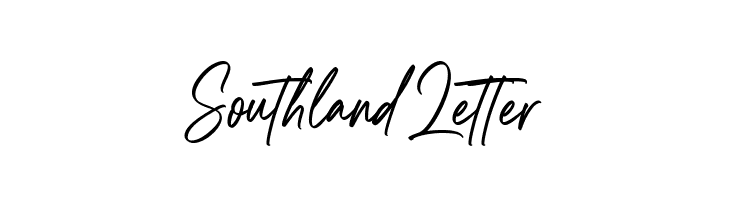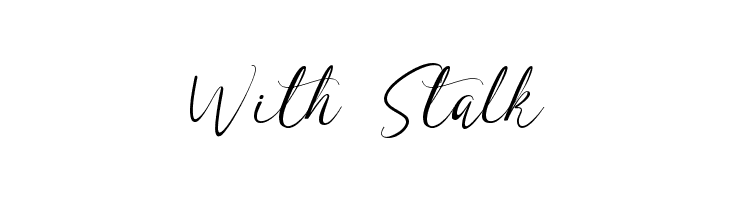
A decorative script font with floral embellishments and elegant, flowing letterforms.
A bold, angular font with a dynamic and energetic slant.
A bold, hand-drawn font with an expressive and playful style.
A fluid, cursive font with a natural handwritten style and medium contrast.
A futuristic, angular font with a dynamic slant and geometric shapes.
A modern, geometric font with thin lines and a minimalist aesthetic.
A sleek, modern font with elongated, narrow characters and high contrast.
A bold, angular, and oblique font with a modern, edgy style.
A bold, textured script font with a playful, handcrafted style.
A modern, flowing script font with dynamic strokes and elegant style.